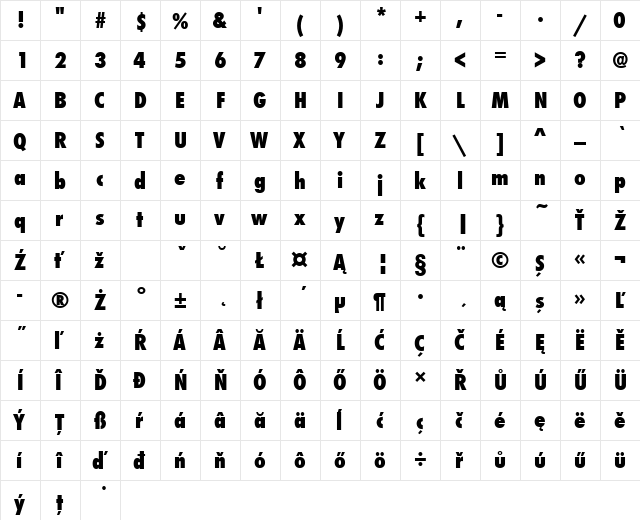
FuturaTEEExtBolCon Regular
Design Context for FuturaTEEExtBolCon Typeface
FuturaTEEExtBolCon has a distinctly futuristic character, with geometric precision and clean angles that feel at home in technology, gaming, and sci-fi contexts.